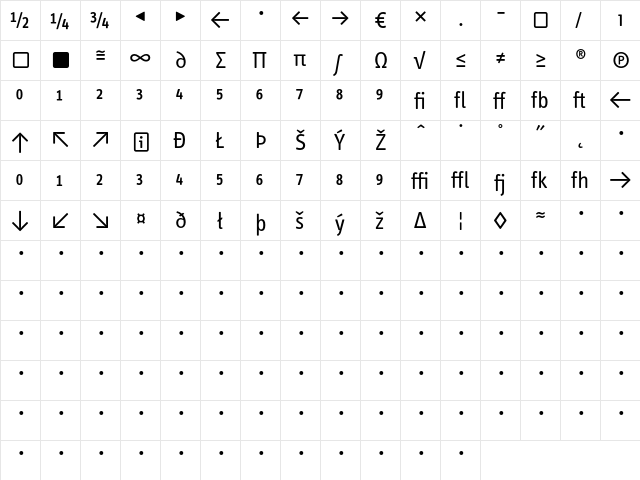
InfoDispRegular RomanExp
Design Context for InfoDispRegular Typeface
InfoDispRegular is a composed and adaptable typeface that performs quietly and consistently across a wide range of design contexts.